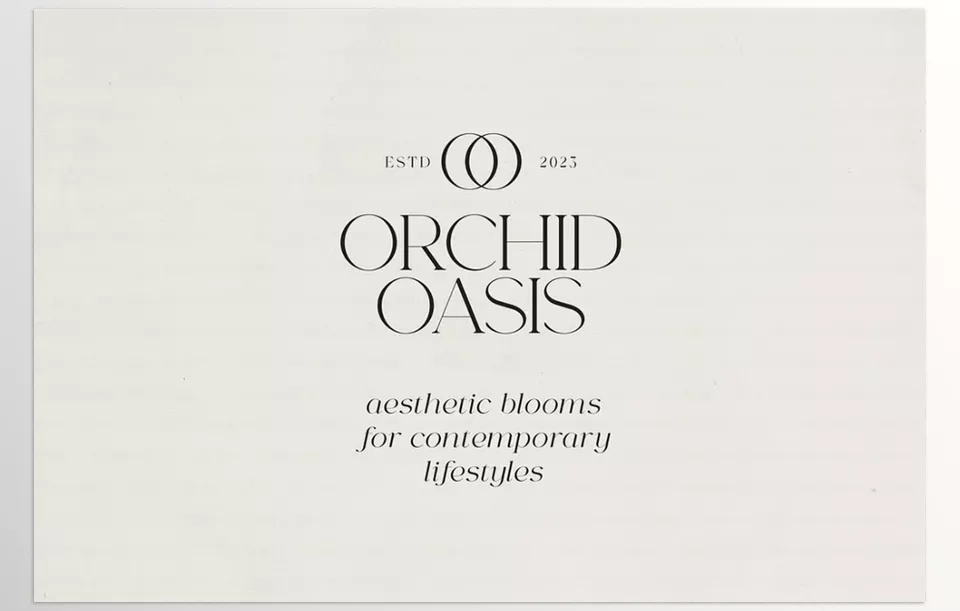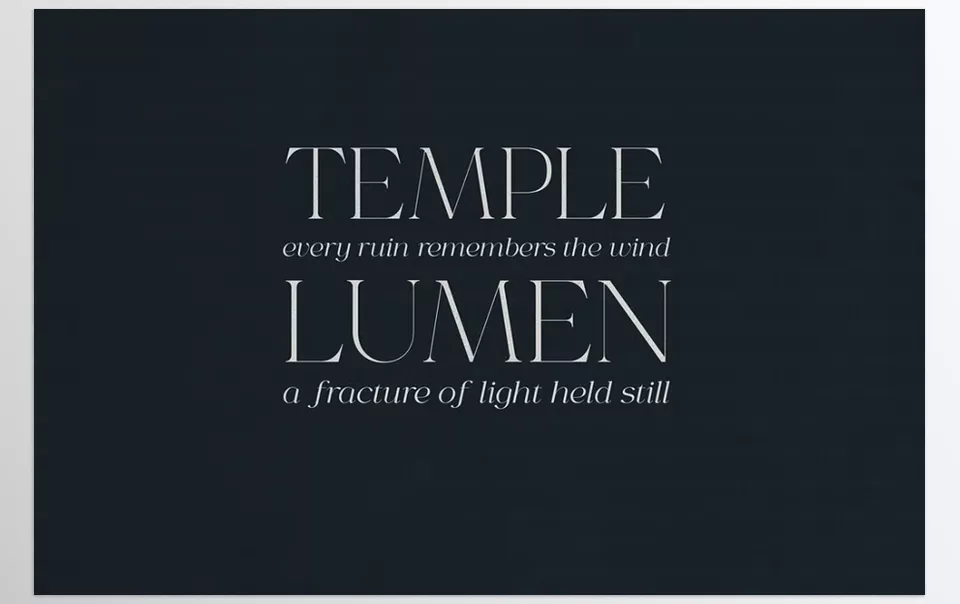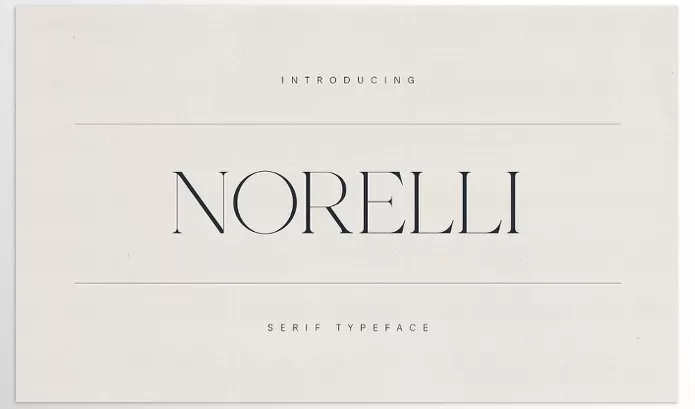
Norelli – A Modern Serif Typeface showcases sophisticated design and tells visual stories through elegance and clarity.
Only Fonts – A Modern Serif Typeface Features
• Elegant Design: Looks refined because it features high contrast strokes combined with graceful curves.
• Luxury Design Uses: Perfect for editorial design, upscale packaging and luxury branding.
• Global Accessibility: Supports a multilingual interface for international audiences.
• Print and Digital Versatility: Available across all digital media and print.
• Always in Style: Combines modern with classic design elements for long-lasting appeal.
• Tailored to Specific Industries: Focused on niche industries like fashion, photography and others.
Preview A Modern Serif Typeface
Image 1: Rebrand your business image with an elegant touch today.
A Modern Serif Typeface - Rebrand your business image with an elegant touch today.
Image 2: Bring sophistication into every phrase of your visual storytelling.
A Modern Serif Typeface - Bring sophistication into every phrase of your visual storytelling.